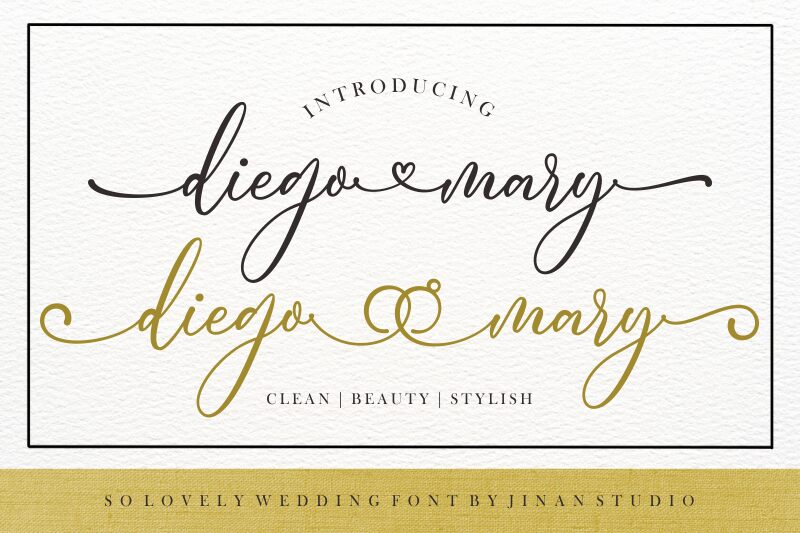
Diego Mary
Diego Mary font by Ainun Jinan is a free elegant script font. Built for graceful statements, it sweeps across the line with silky, connected strokes, tall ascenders, and generous, looping finales that feel inky rather than vector-stiff. The slight pressure contrast and airy spacing keep it legible at headline sizes while preserving that ribbon-like flow designers hunt for when they need warmth without mess.
Using Diego Mary, your titles and marks take on a boutique polish that shines on wedding stationery, beauty branding, product labels, thank-you cards, social posts, and packaging seals. The rhythm is steady and confident, so words read as a single gesture instead of fussy letters. For balance, pair this free font with a quiet geometric sans in small caps, and let Diego Mary handle the spotlight at larger sizes.